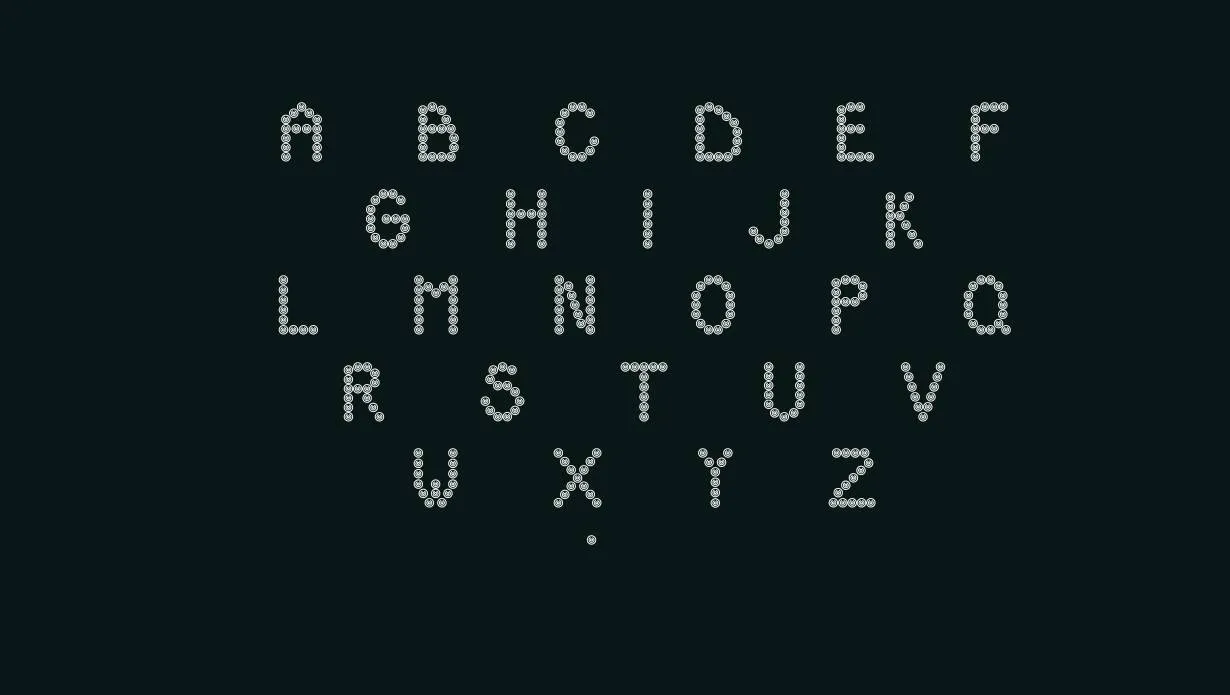
Have a good time with Hooters Font! This playful and friendly typeface adds a touch of cheerfulness to your text.
It’s like a font that’s always up for a good laugh, making it perfect for kids’ materials, event invitations, or anything that calls for a lighthearted and approachable feel.
| Name | Hooters Font |
| Designer | Gabrielle Gaither |